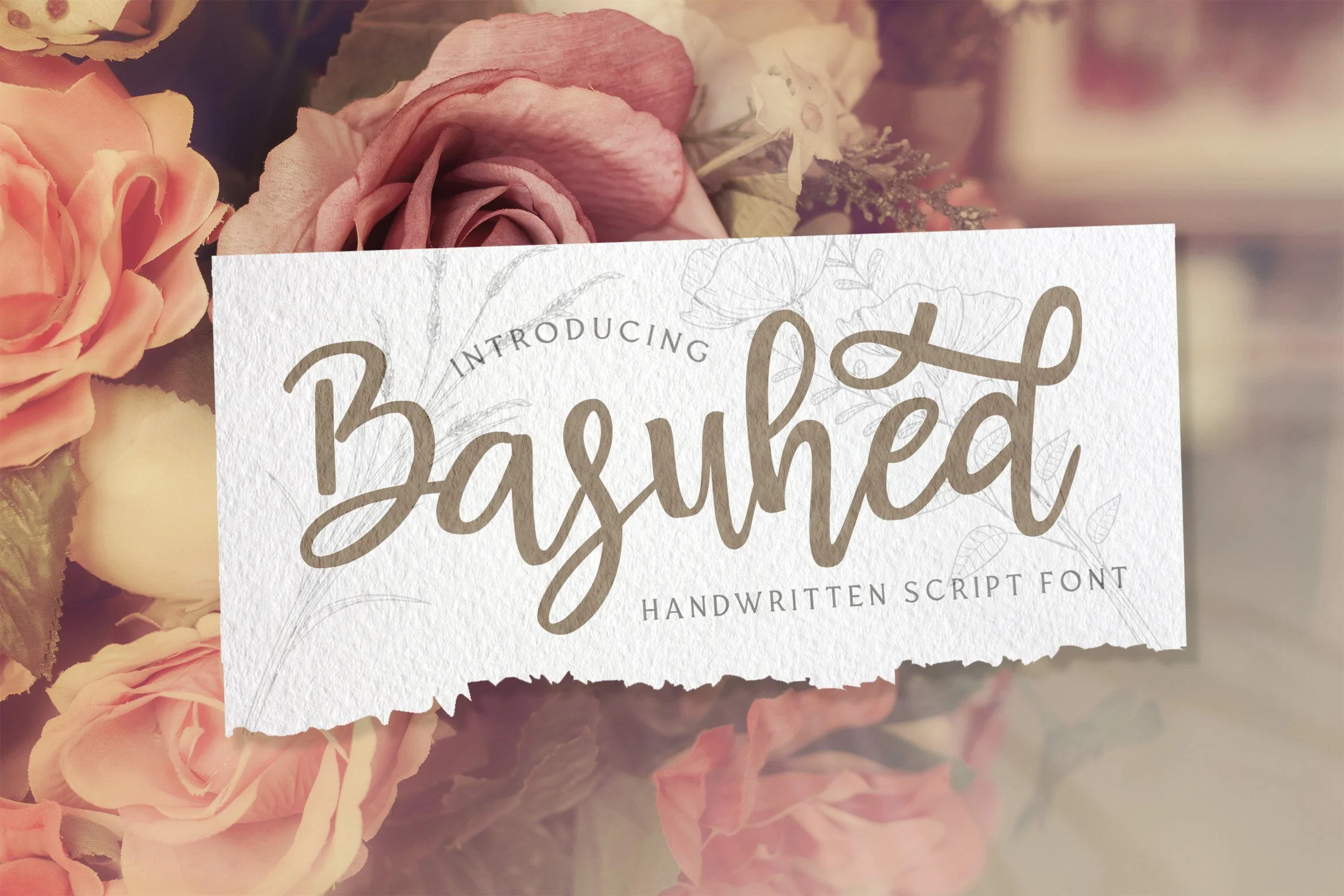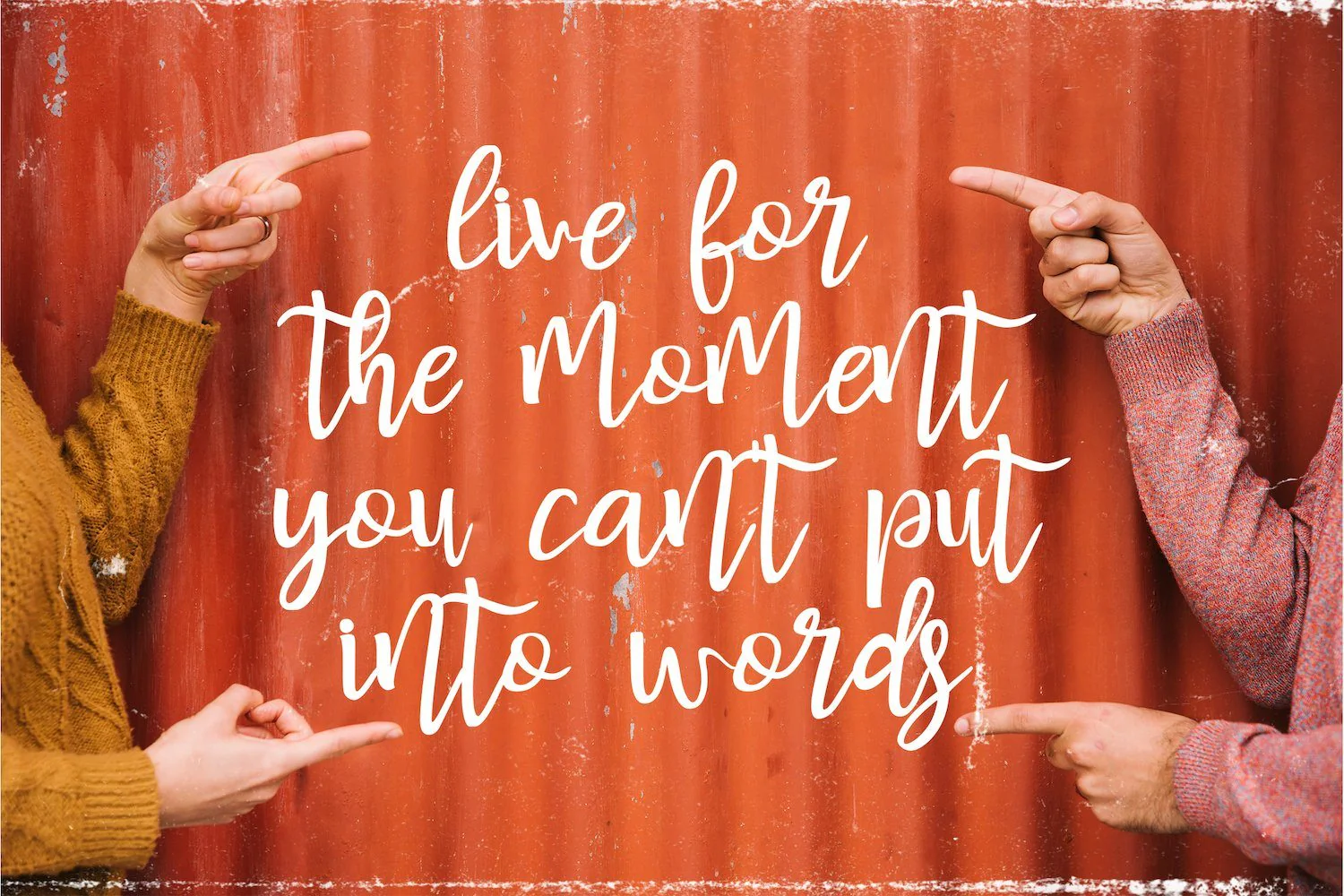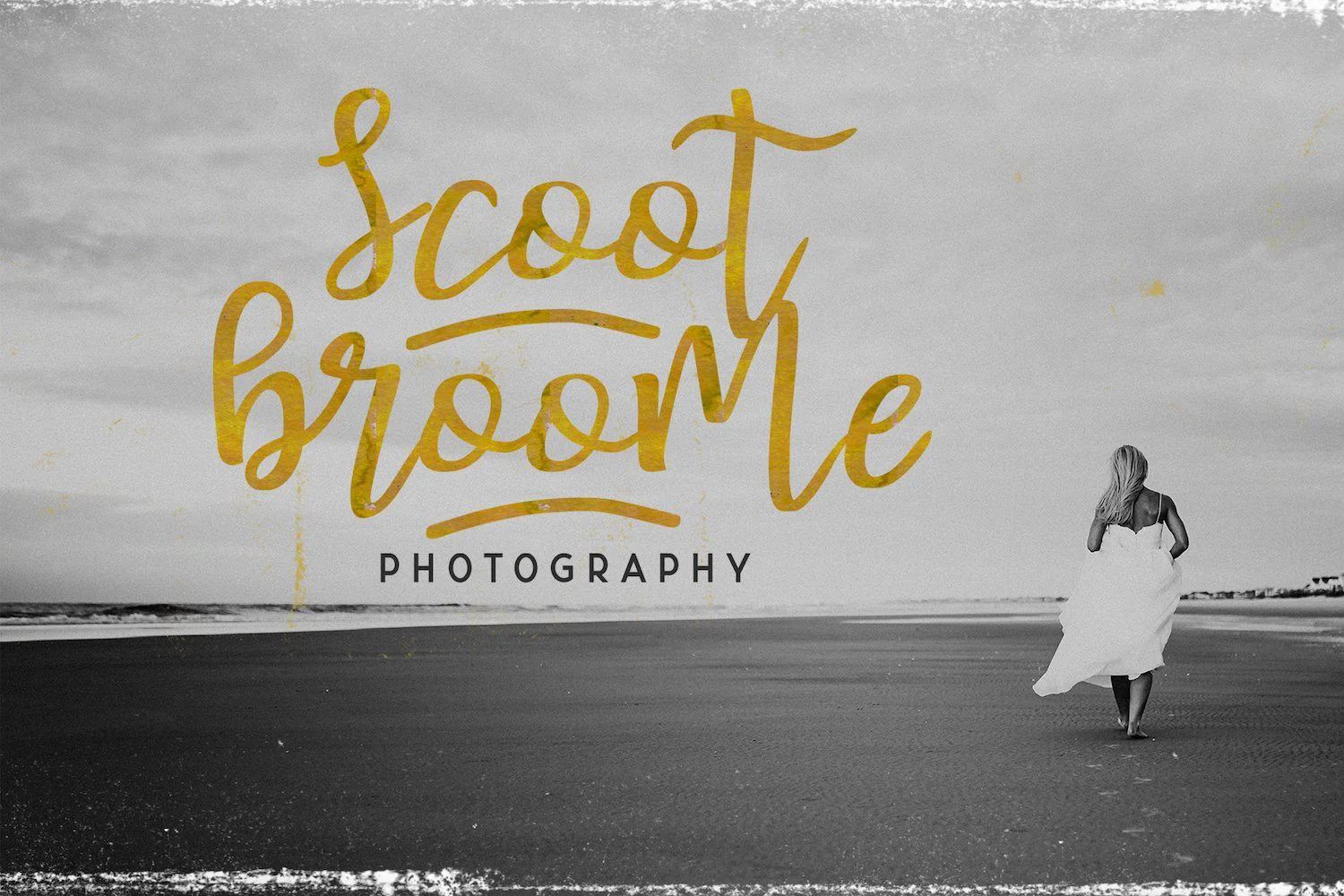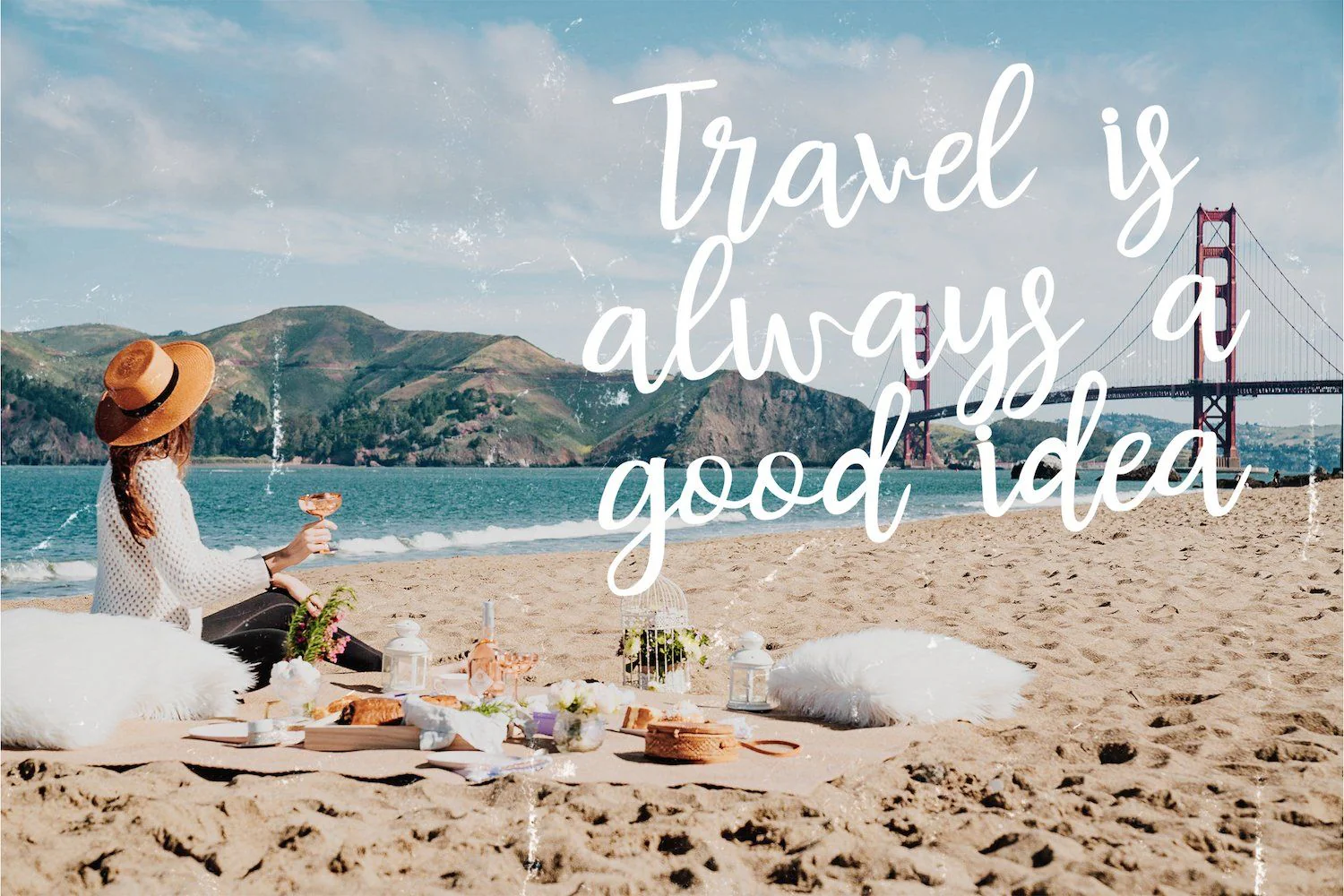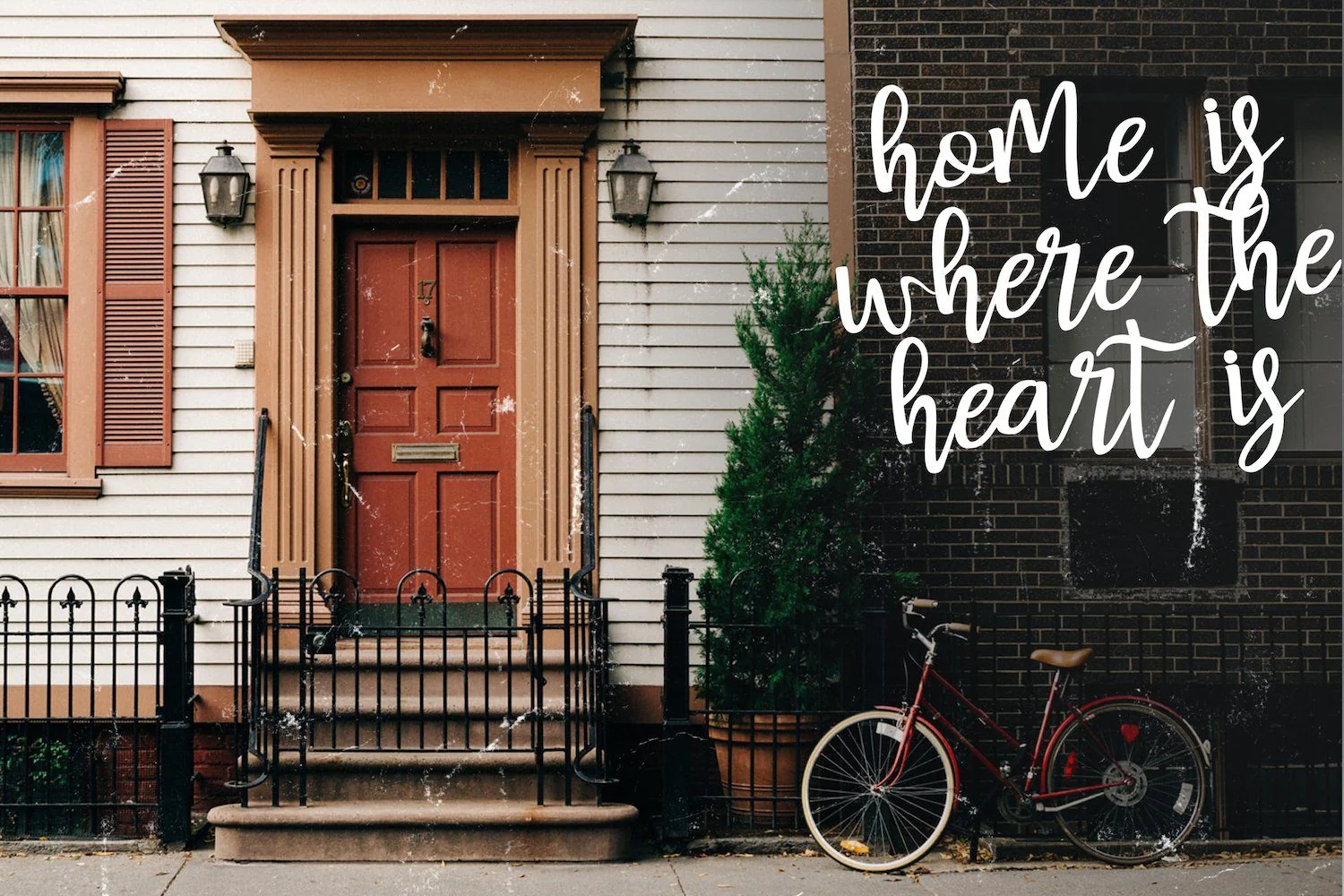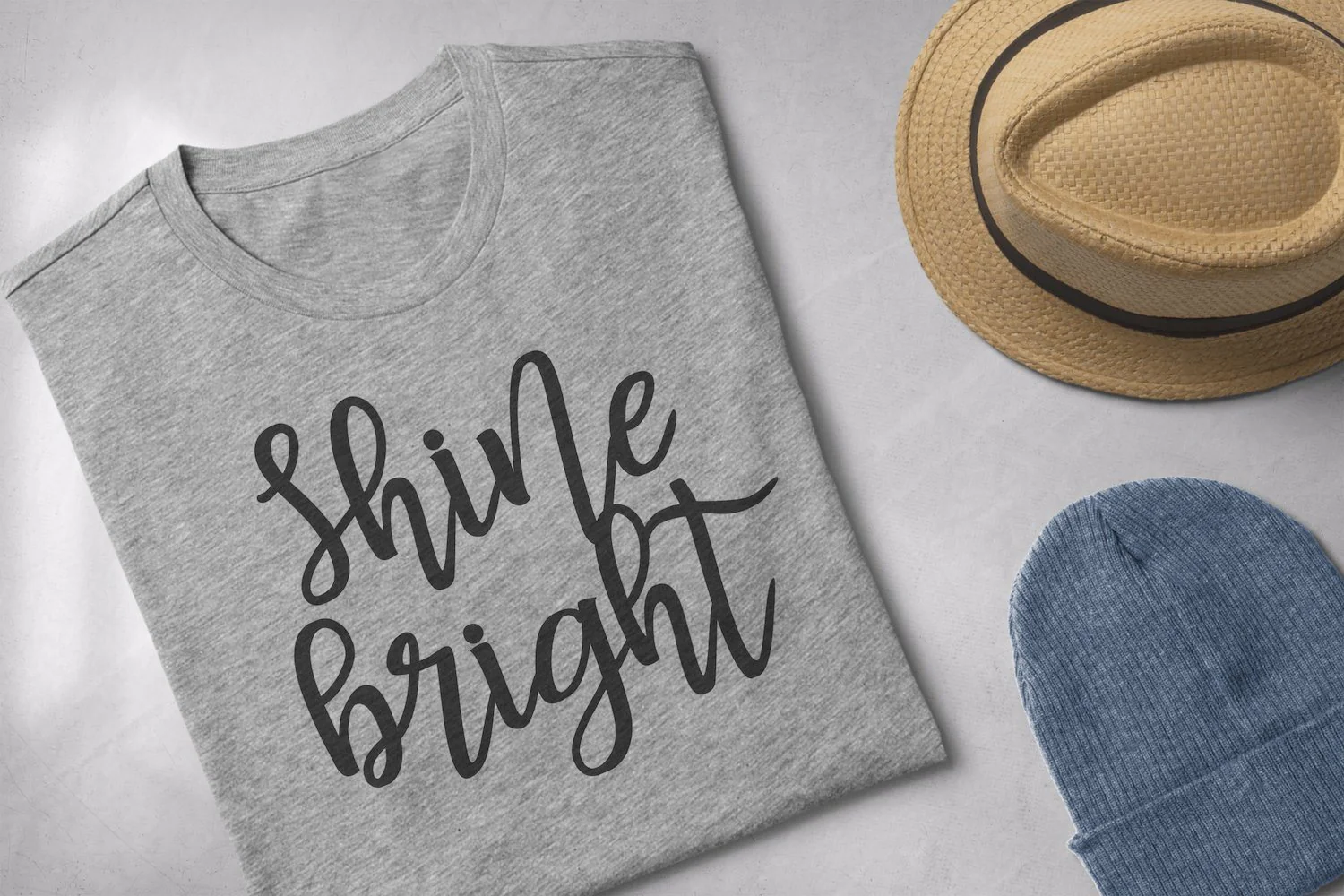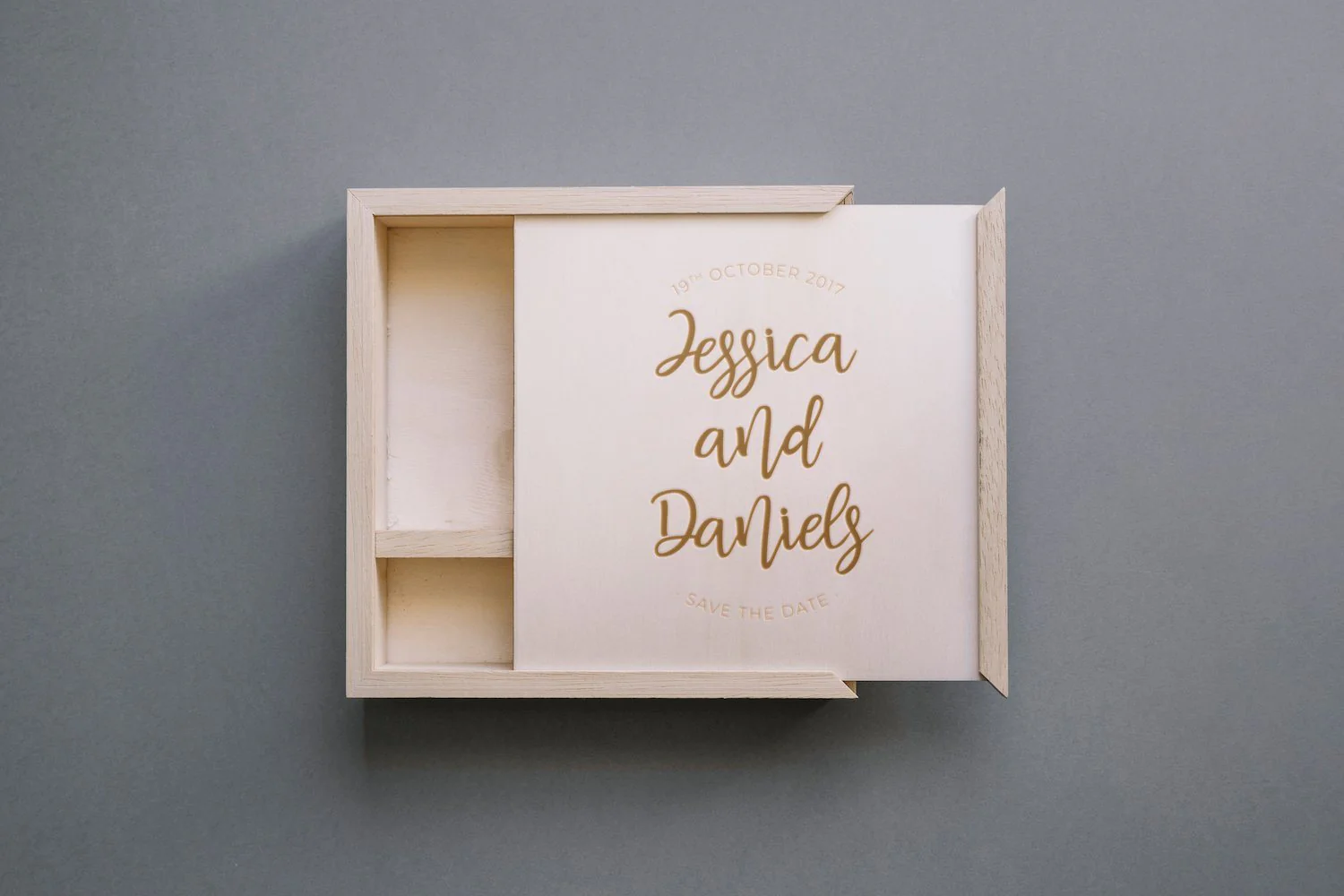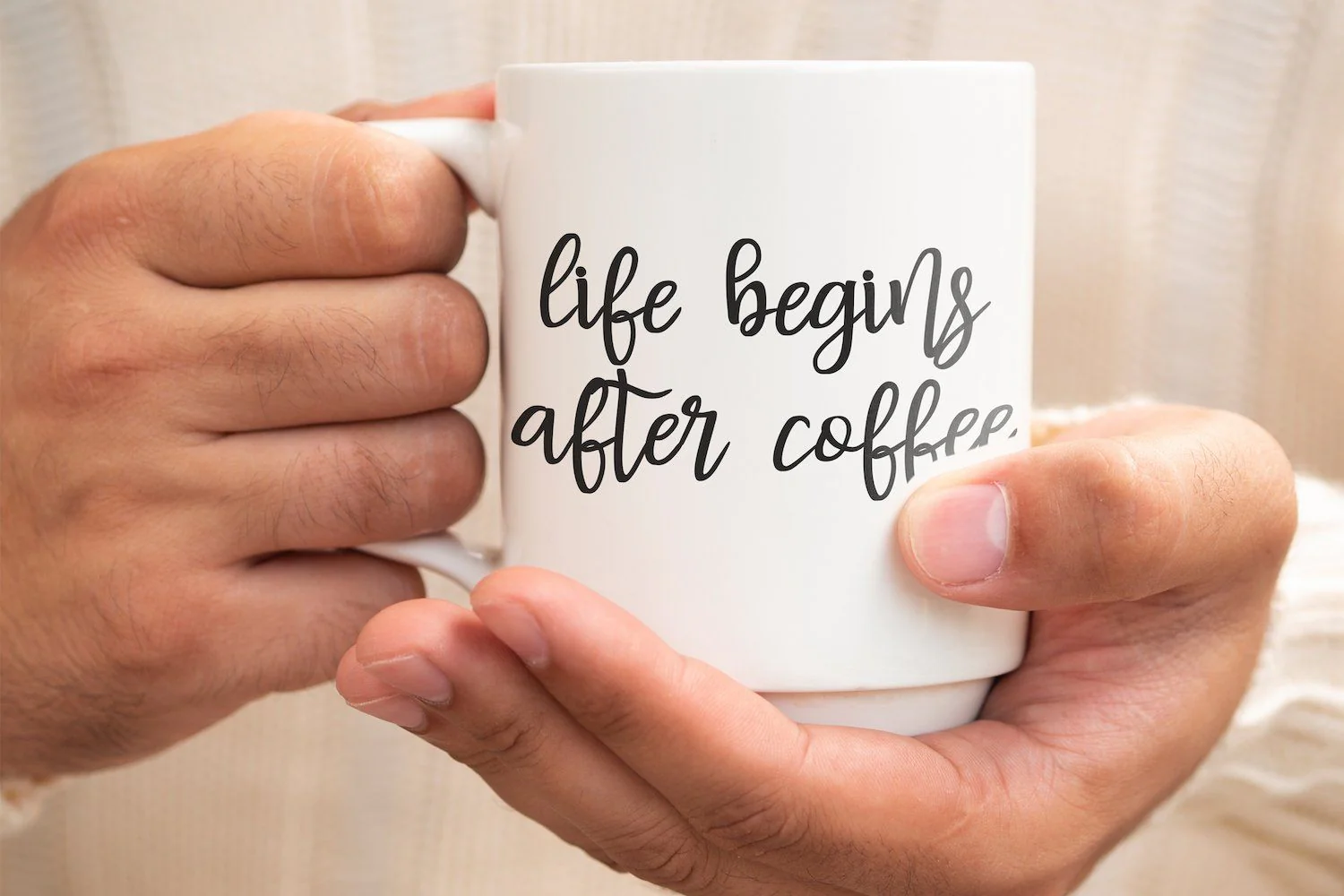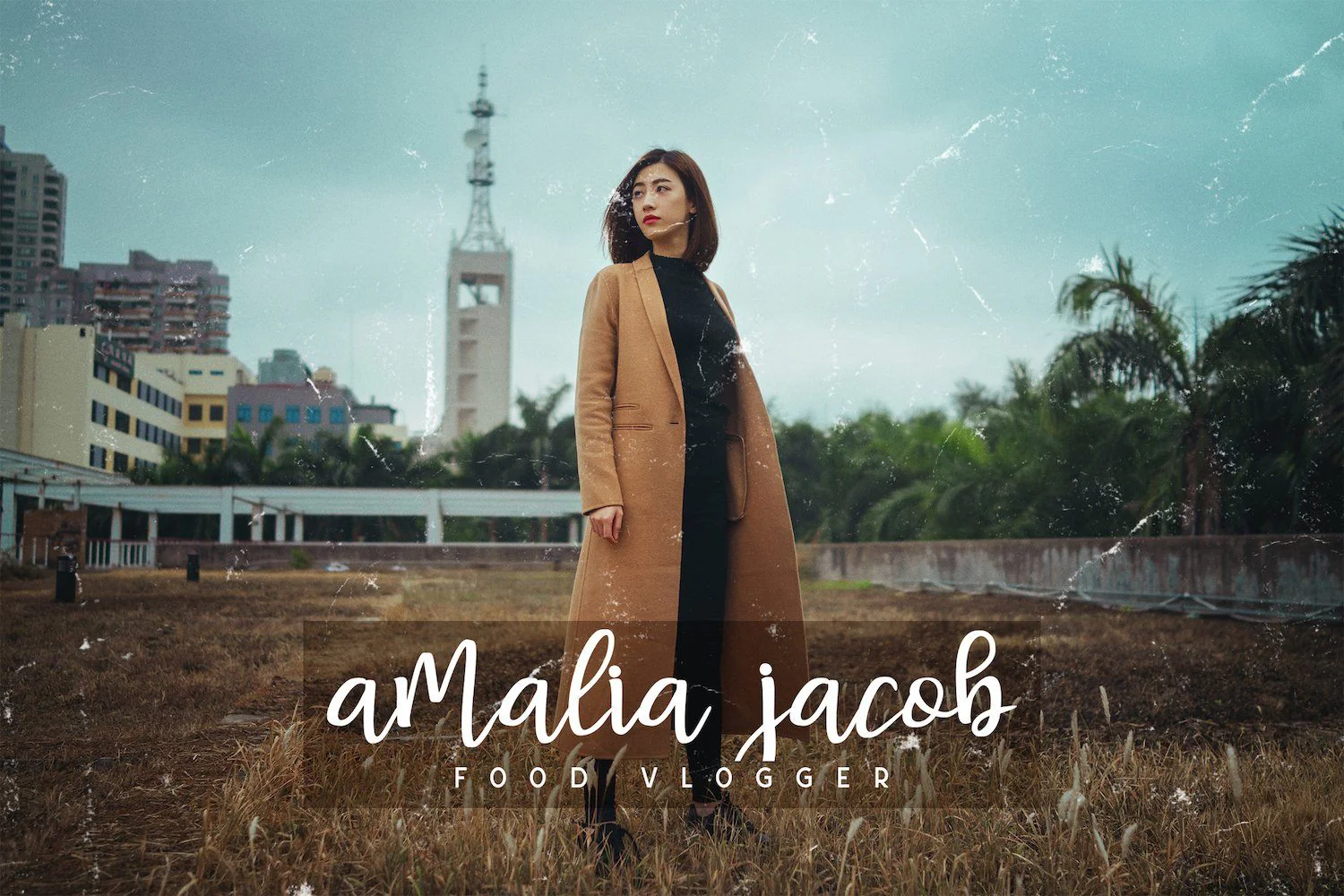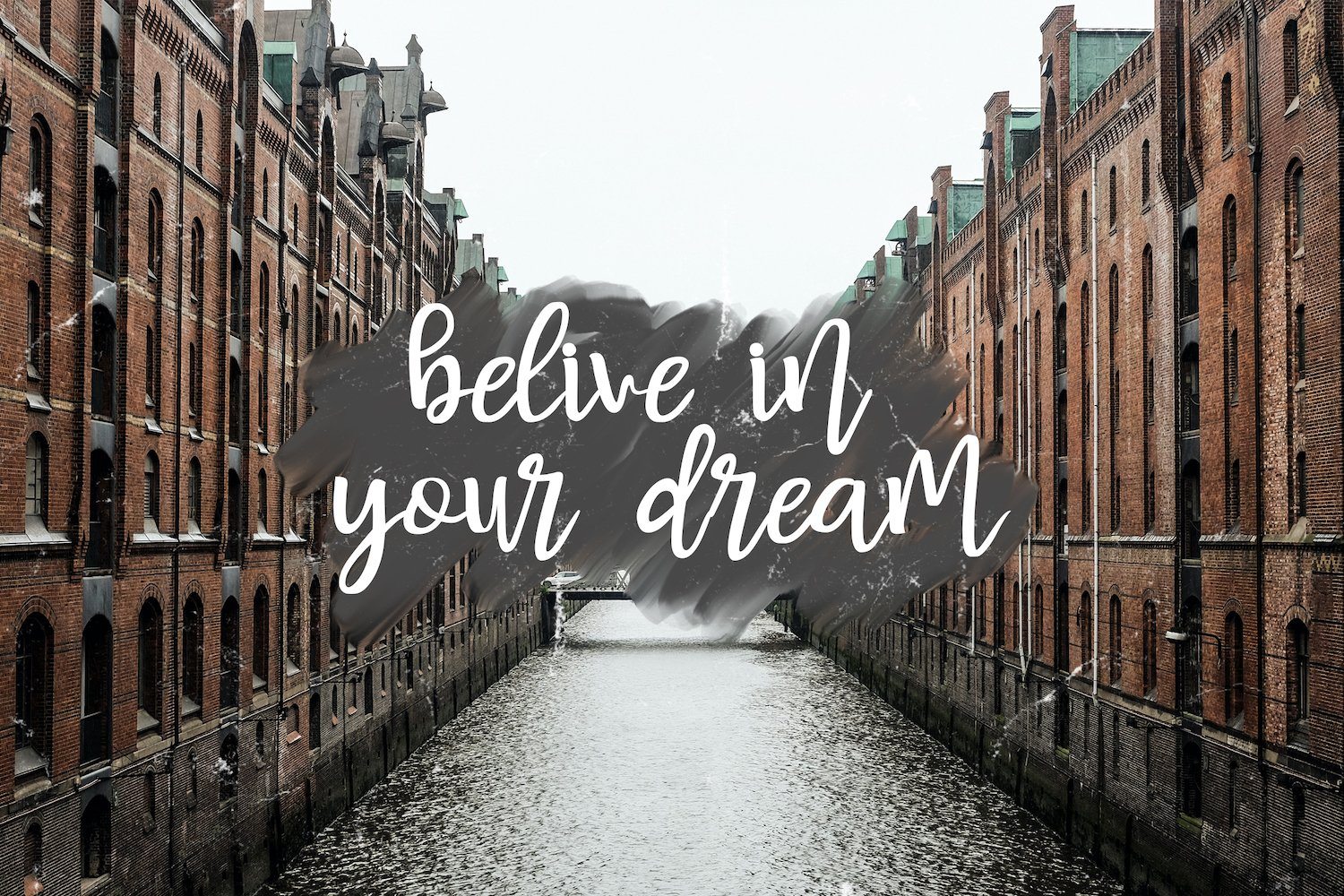
Basuhed - Handwritten Font
Introducing Basuhed - Handwritten Font
Basuhed is a script font with handwritten calligraphy style. The Basuhed font made with digital brush pen strokes that making this font look authentic. This font is perfect for fashion brand, wedding invitation, business card, logo brand, signature, and then calligraphy.
This Font contains Elegant, Authentic, Luxury and has a Unique Concept.
Introducing Basuhed - Handwritten Font
Basuhed is a script font with handwritten calligraphy style. The Basuhed font made with digital brush pen strokes that making this font look authentic. This font is perfect for fashion brand, wedding invitation, business card, logo brand, signature, and then calligraphy.
This Font contains Elegant, Authentic, Luxury and has a Unique Concept.